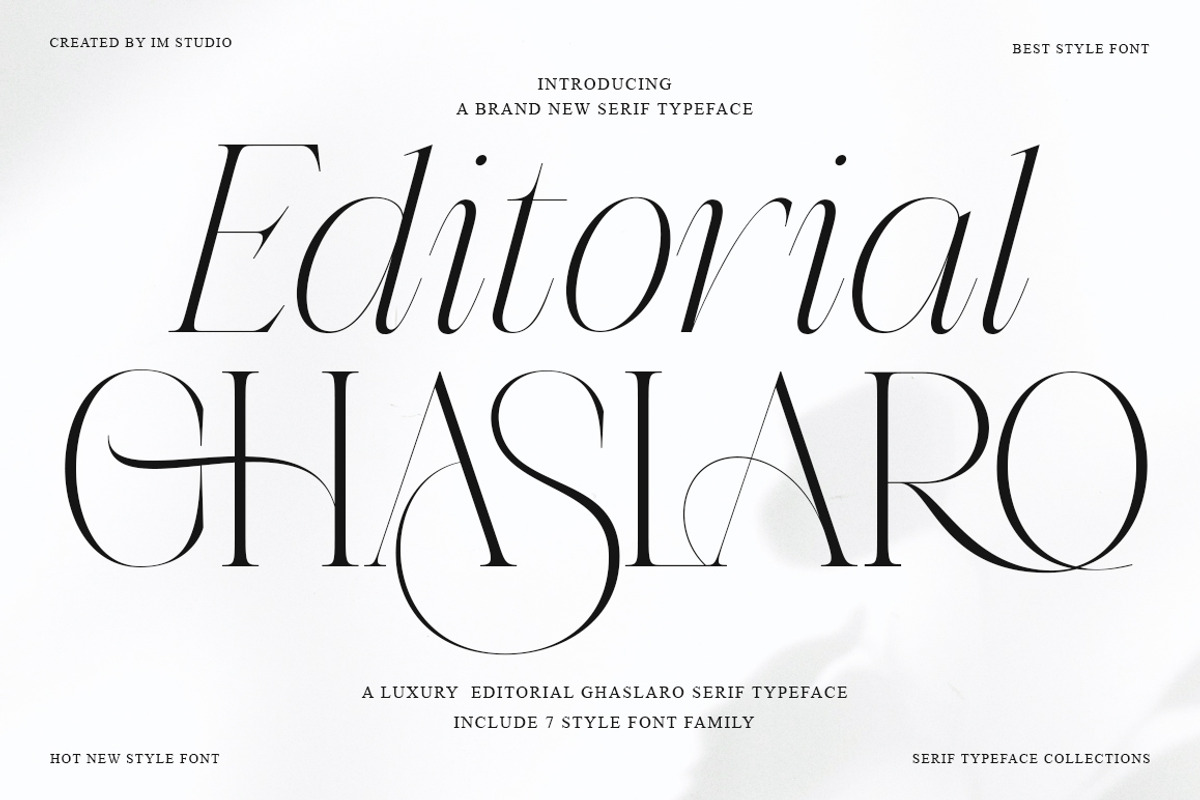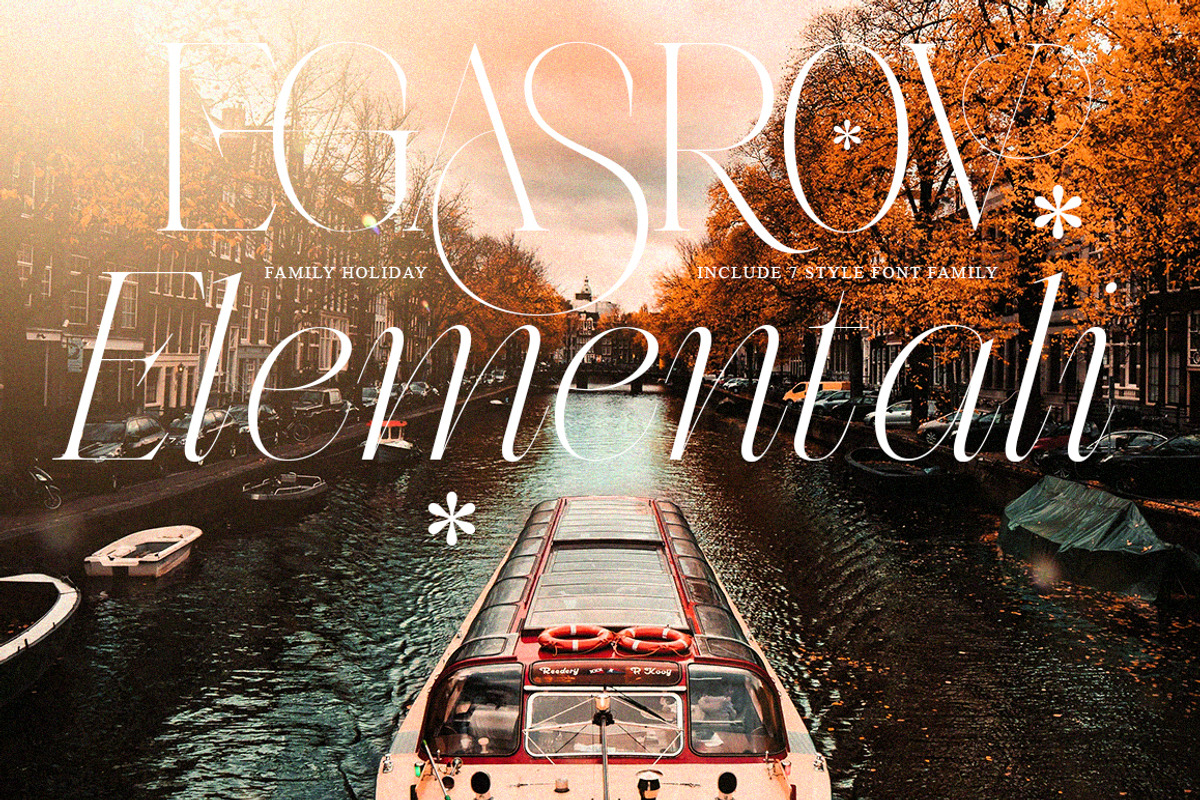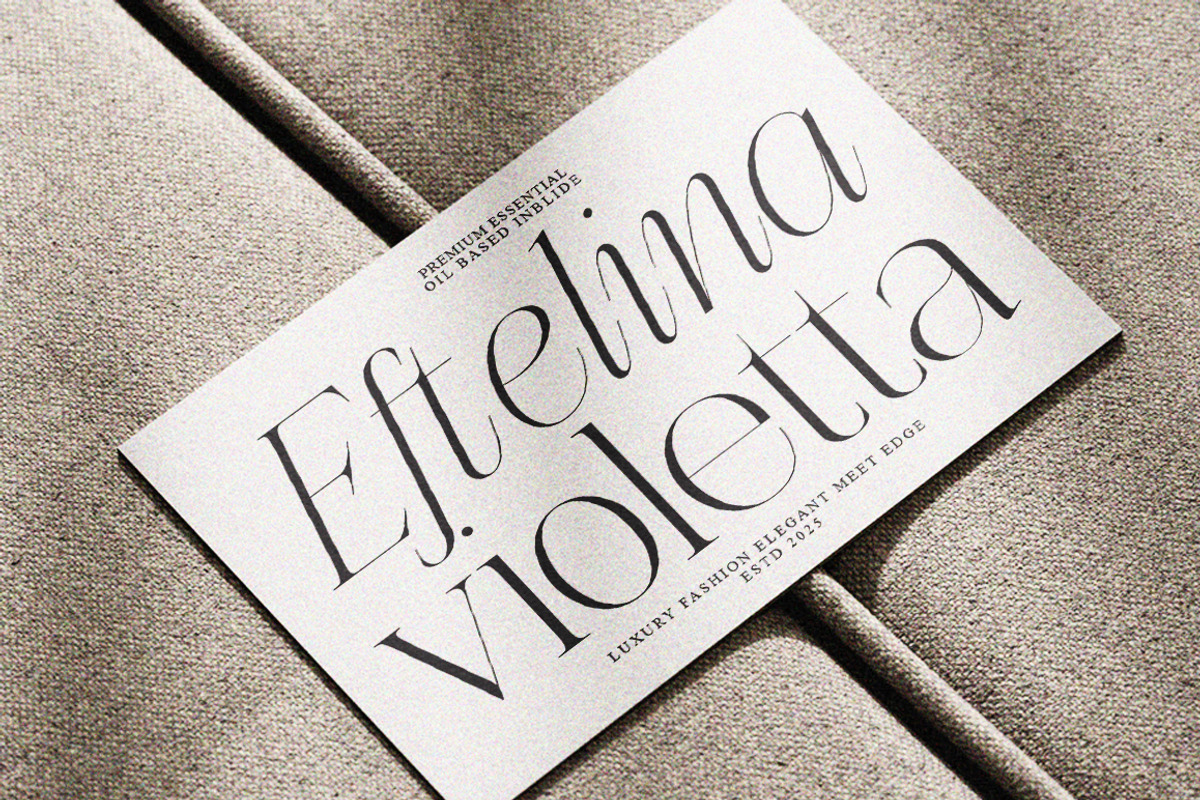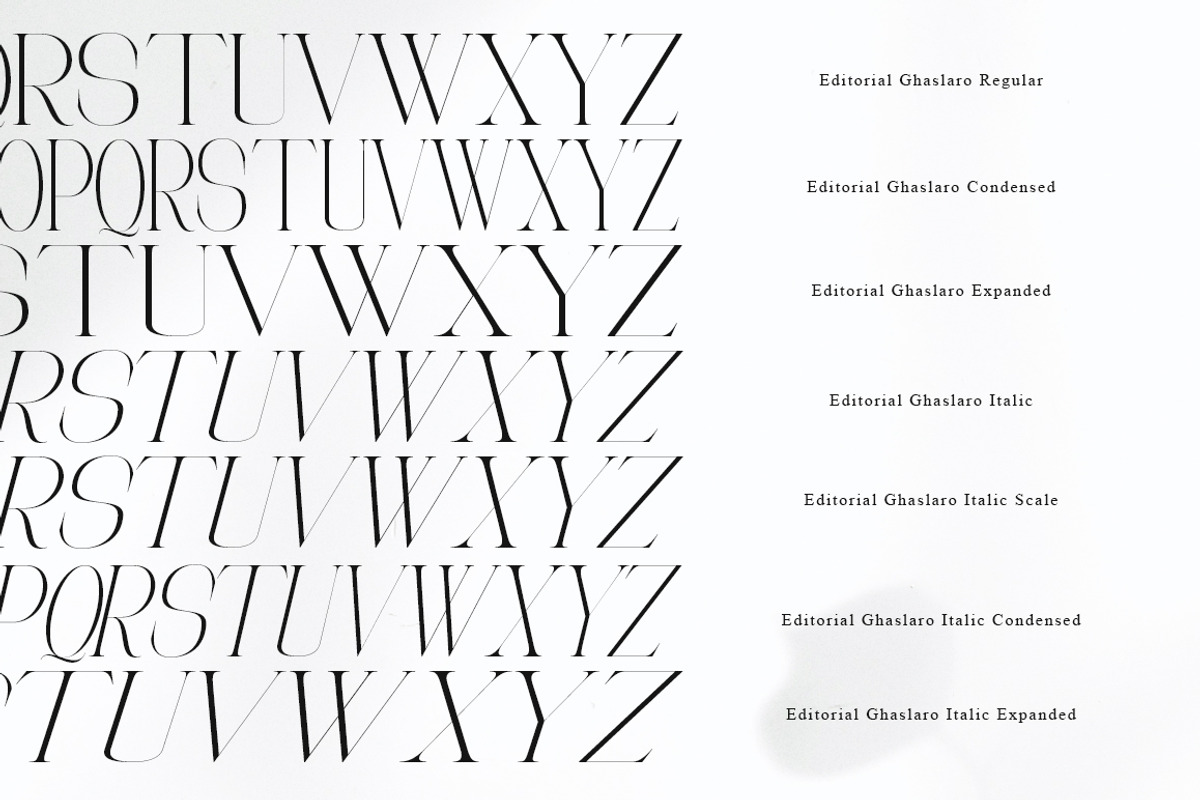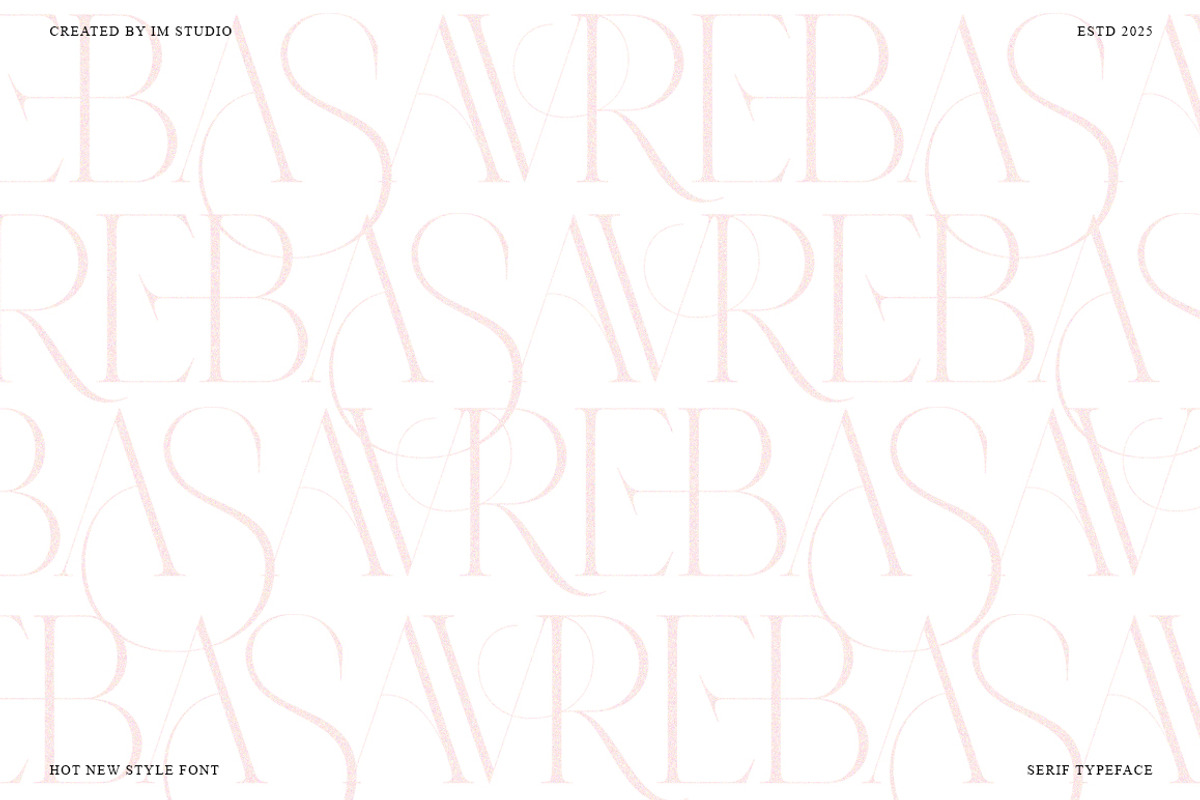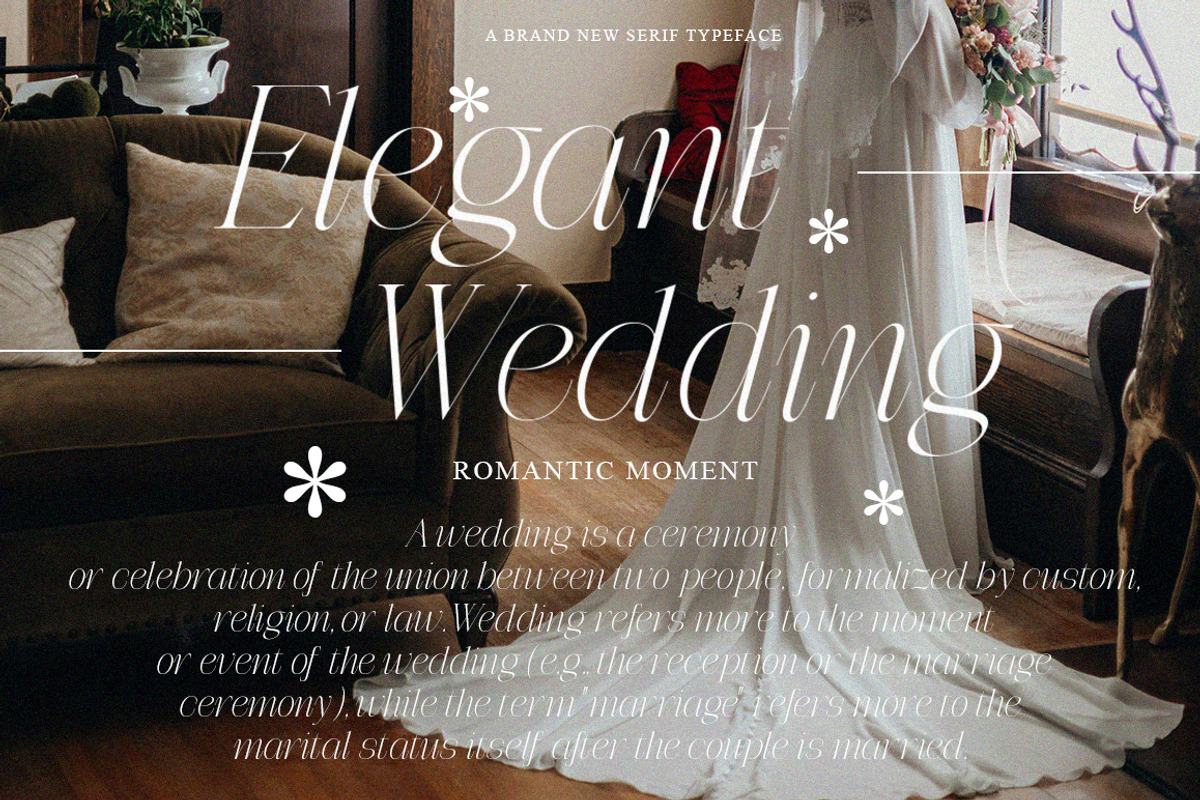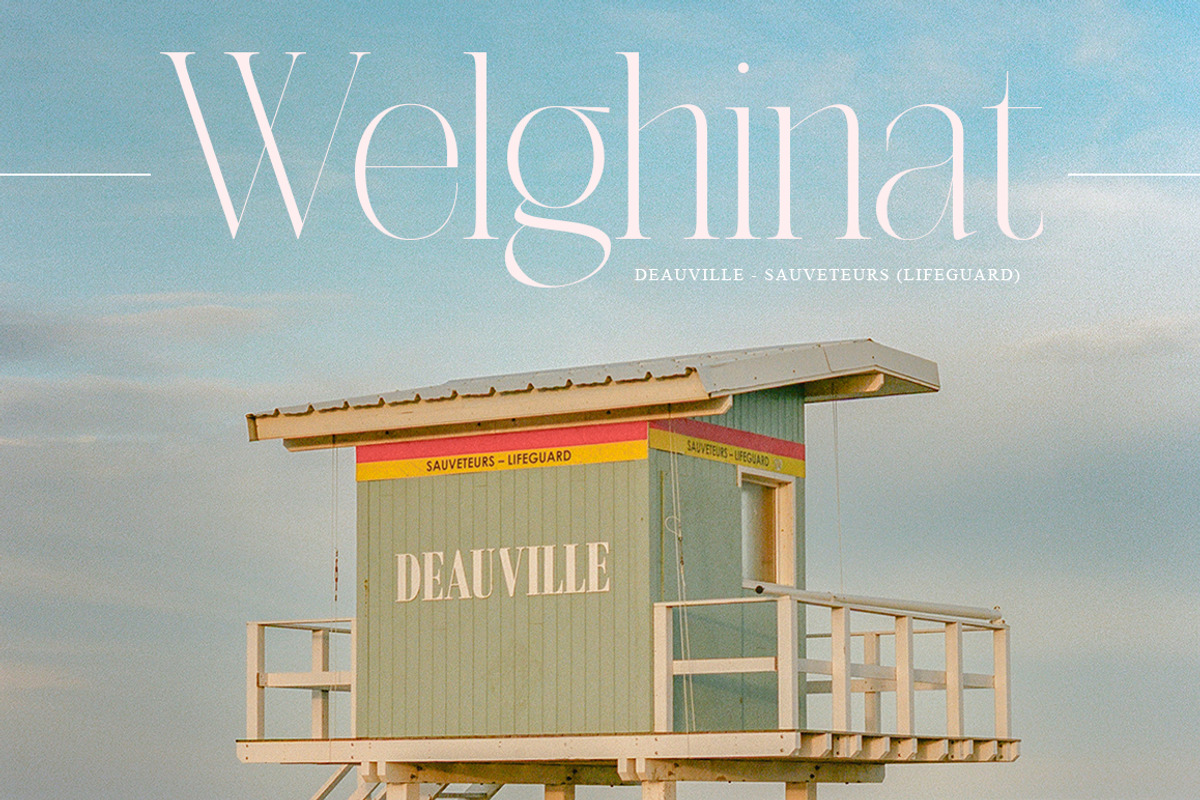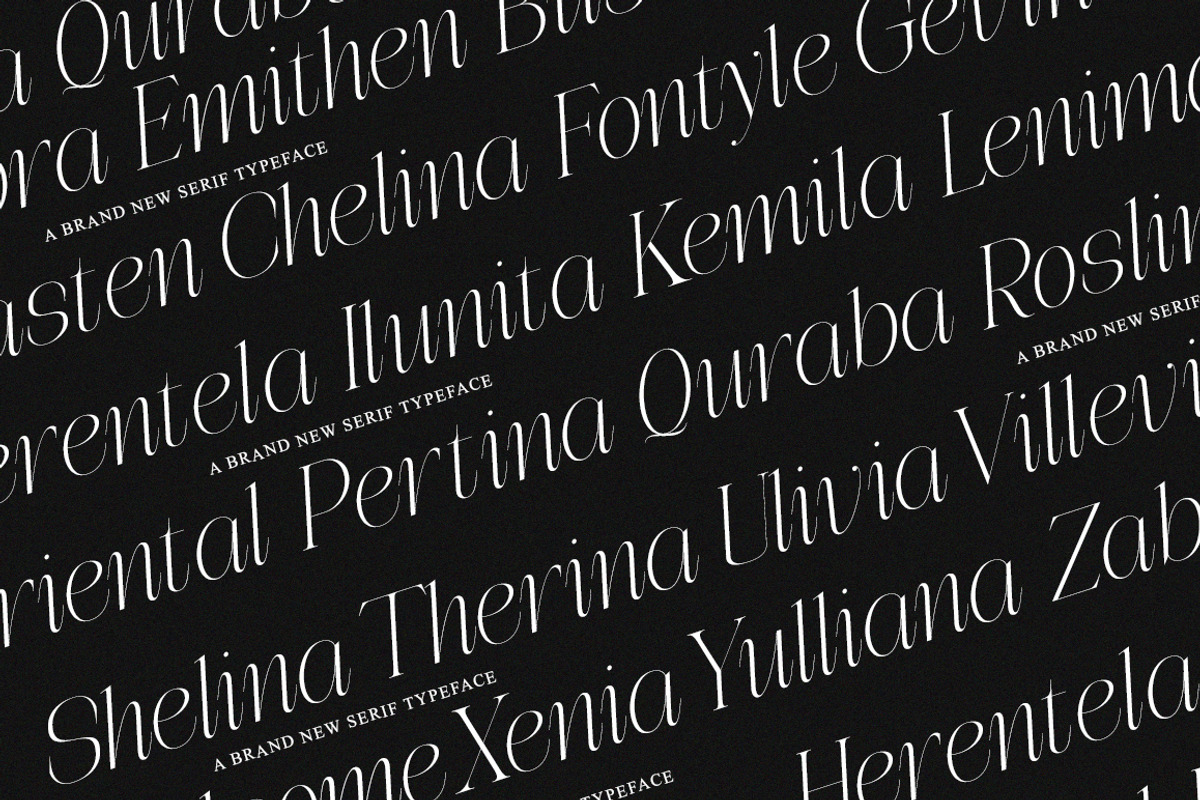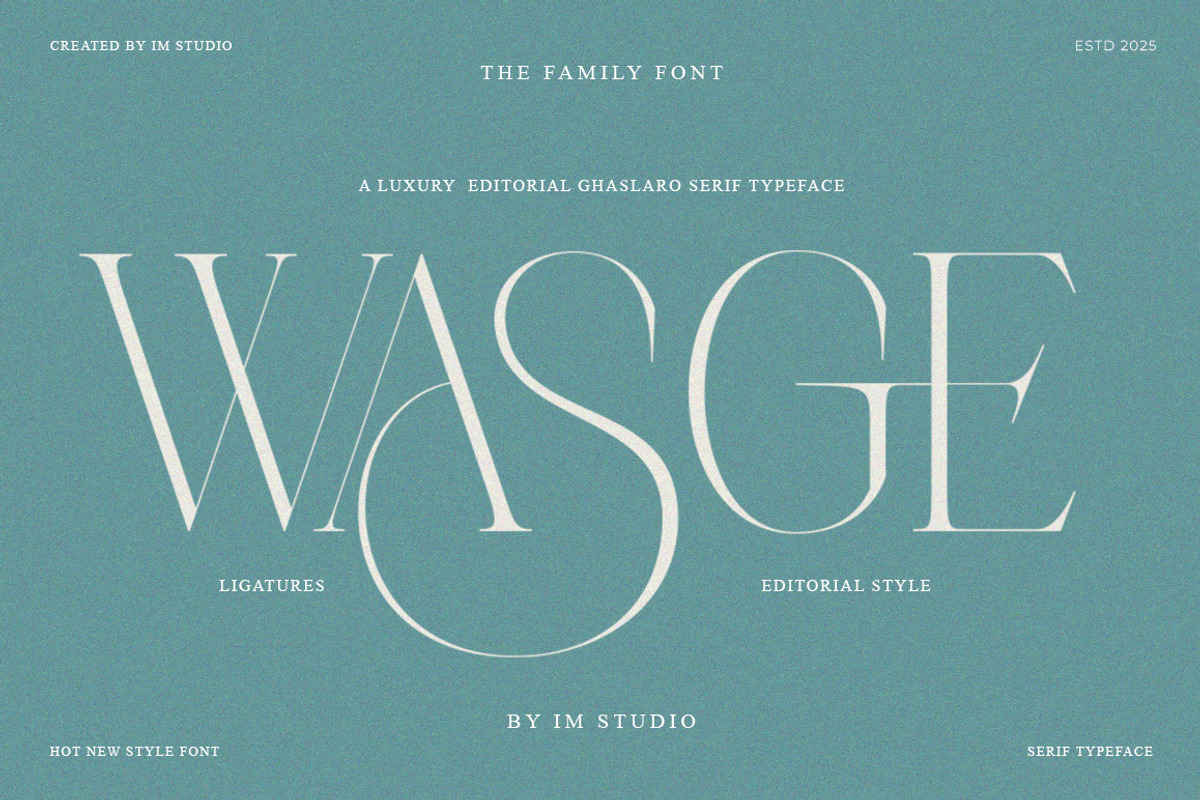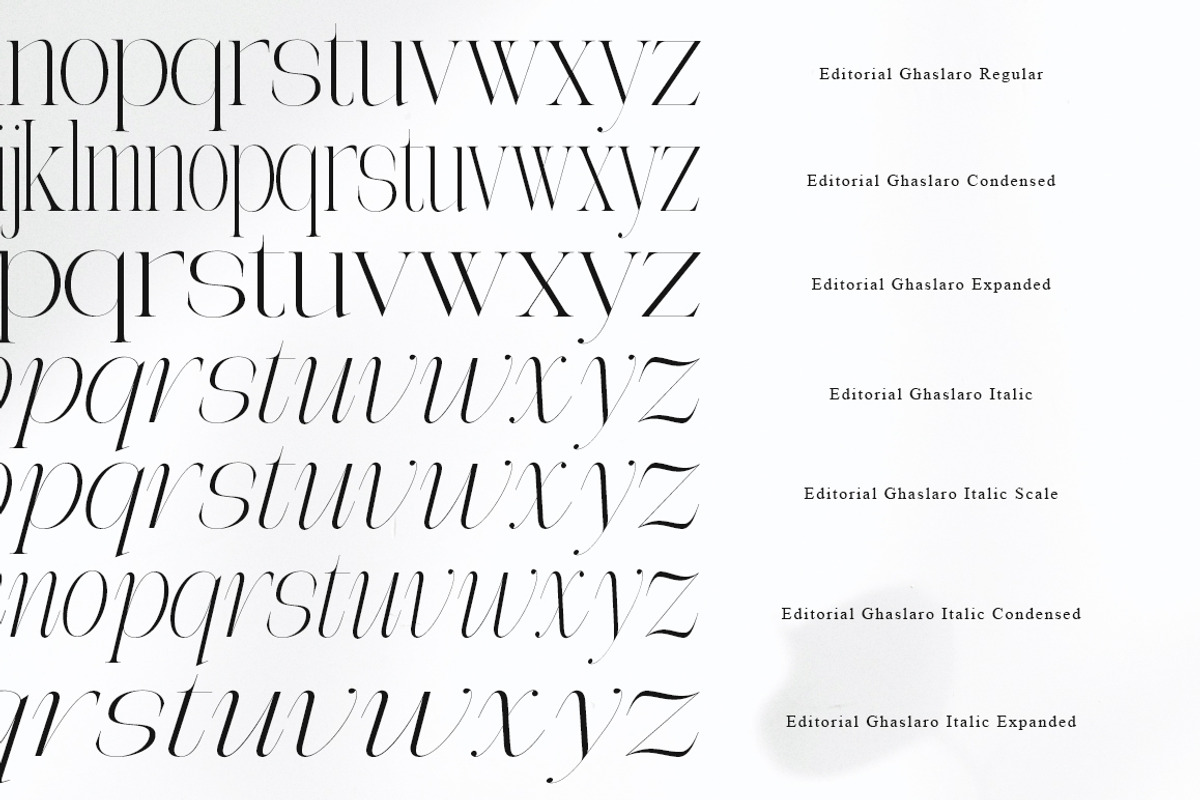
Editorial Ghaslaro | 7 Font Style
Editorial Ghaslaro | 7 Font Styles – Modern Serif Font Family Elevate your designs with Editorial Ghaslaro, the ultimate modern display serif typeface, luxury serif font, and premium display font serving timeless elegance meets next-level edge. Subtle contrasts and fluid curves drop that high-end typography flex—perfect serif font family for projects screaming sophisticated fonts, elegant serif, and scroll-stopping luxury typography.
Ultra-versatile display serif font for branding fonts, logo serif fonts, runway editorial font family, magazine typography fonts, packaging that pops, and any creative hustle craving that premium serif typeface punch.
What's Inside:
7 killer font styles & serif variations for endless vibes: Regular, Italic, Scaled Italic, Condensed, Expanded, Condensed Italic, Expanded Italic.
Full uppercase + lowercase with multilingual font support & international typography
Elegant style variations that slay headline fonts, artistic typography fonts, & display headlines
Tailored for:
Branding fonts & logo design serif
Editorial fonts & magazine serif fonts
Fashion fonts & luxury fashion typography
Poster fonts & book cover typography
Website fonts, social media fonts & web serif typography